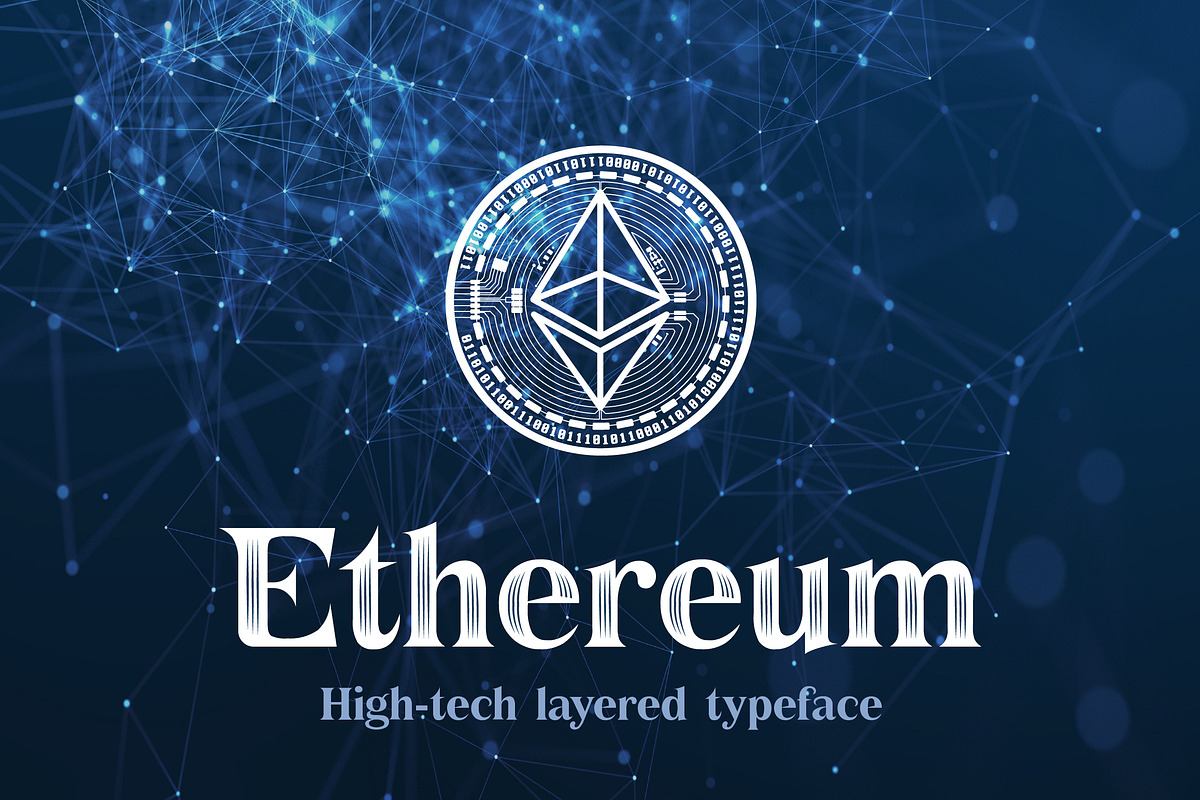
Ethereum Font Free Download is a sleek, tech-inspired typeface designed for the digital age. With sharp edges, clean lines, and a futuristic feel, this font is perfect for blockchain branding, cryptocurrency websites, fintech startups, digital assets platforms, and tech-savvy UI design.
Whether you're building a crypto dashboard, designing a whitepaper cover, or crafting a bold logo for a Web3 project, Ethereum Font delivers modern professionalism with high readability. Its geometric aesthetic mirrors innovation and trust — ideal for decentralized, forward-thinking design. Ethereum Font Free Download allows you to test its cutting-edge style in personal use before purchasing a commercial license.
Power your next tech-forward project with Ethereum — the font that speaks the language of the future.